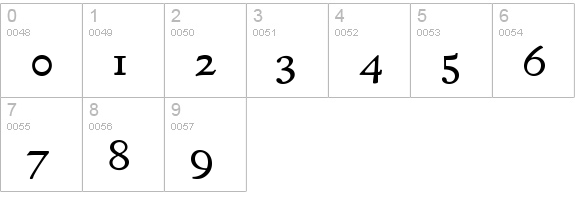
Introducing EldoradoMicro-Roman font, a stylish and sophisticated typeface that exudes elegance and charm. With its sleek lines and classic design, this font is perfect for adding a touch of class to any project. Whether you're working on a business presentation, a wedding invitation, or a branding project, EldoradoMicro-Roman font will elevate your design to the next level. What's even better is that EldoradoMicro-Roman font is completely free to download at FontsMarket.com. Yes, you read that right - you can enhance your work with this beautiful font without spending a dime. So don't miss out on the opportunity to elevate your projects with EldoradoMicro-Roman font. Download it today and let your creativity shine!